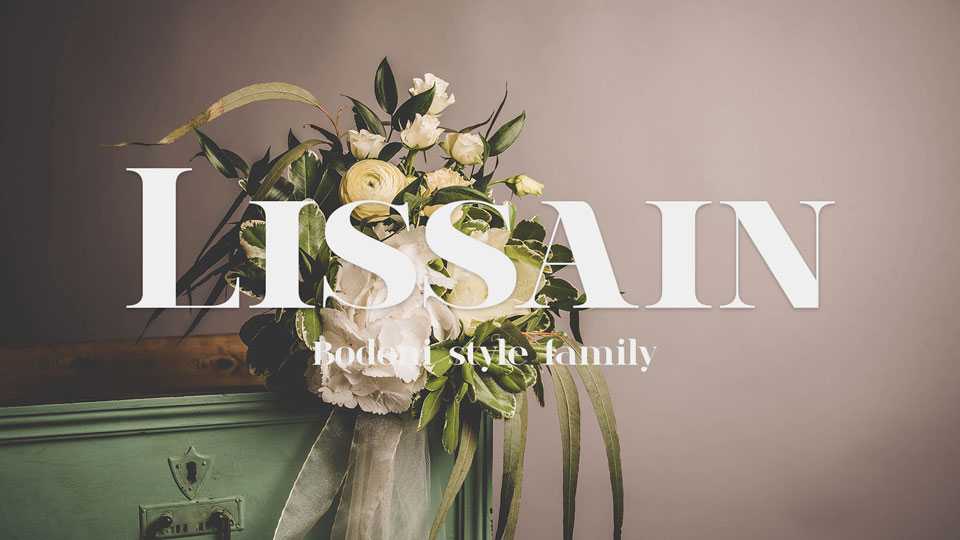
Lissain Font Family › Fontesk – Download Grátis
Download Lissain typeface, an elegant serif font family in two styles – Regular and Didone. Lissain perfectly fits for logos, headlines, magazines, covers, fashion, apparel, weddings, etc.
Designer: Typesgal